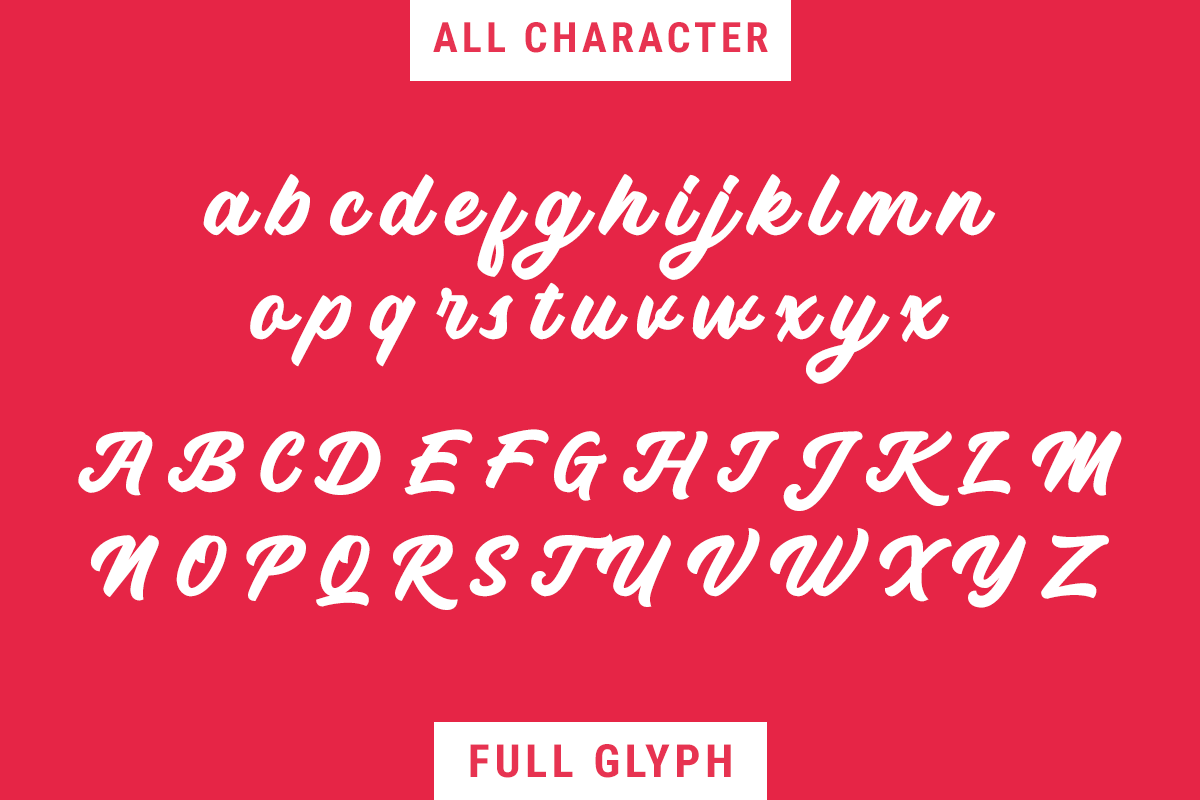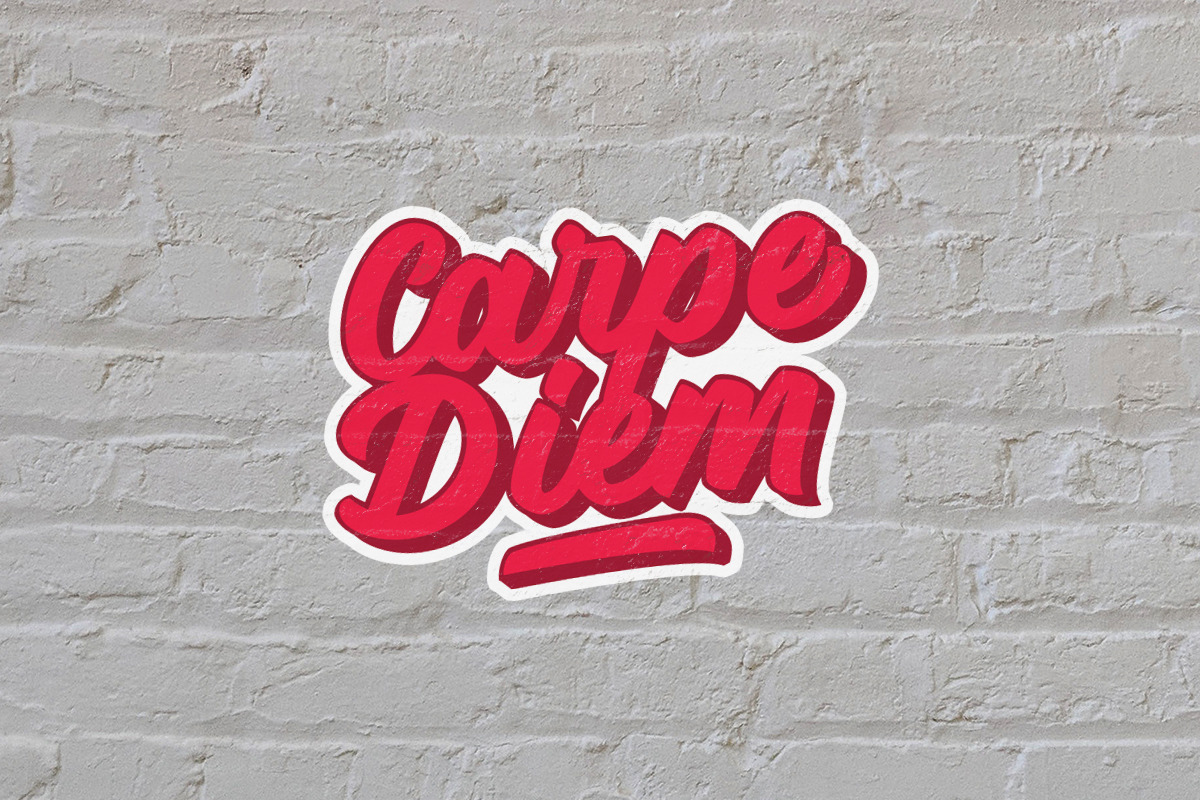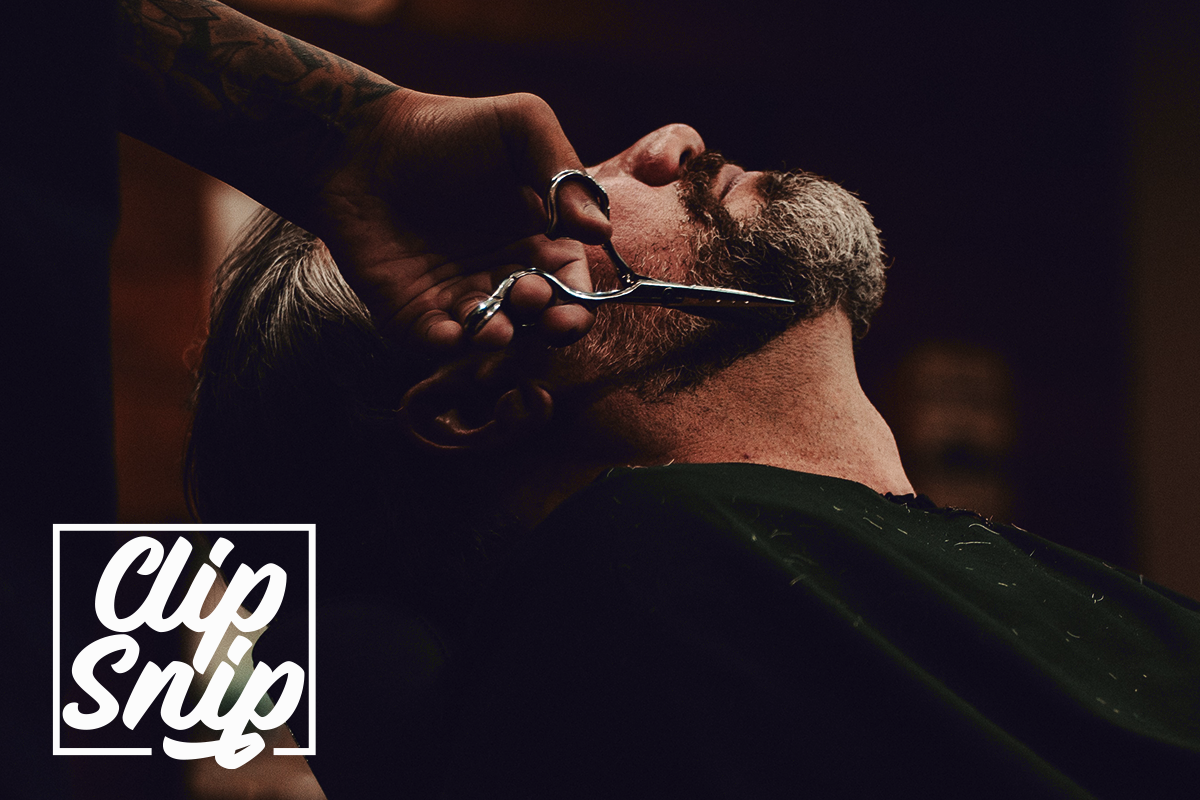
Hazel Clouds Modern Script
Hazel Clouds is a script font that has modern looks. This font is perfect for you who needs modern script as this font is applicable for branding, headline, apparel, packaging. it also comes with more than 9 stylistic alternates to make you can choose your own style!
Hazel Clouds also support multilingual language.